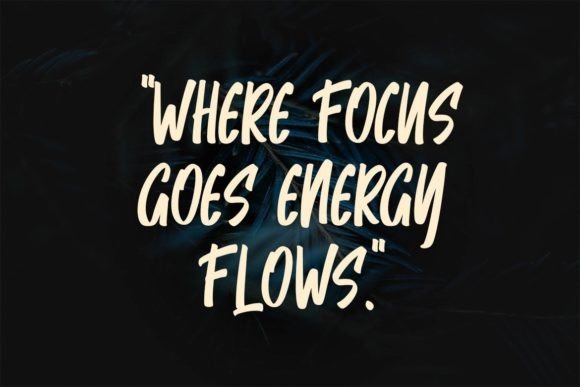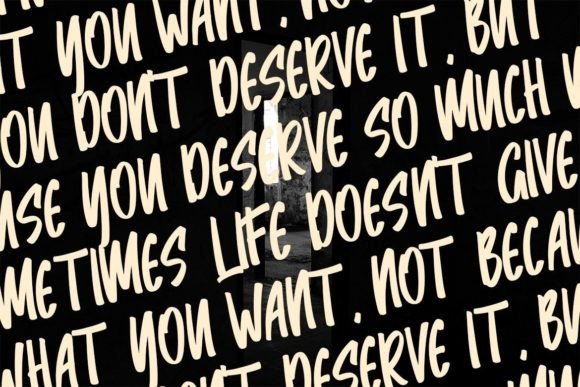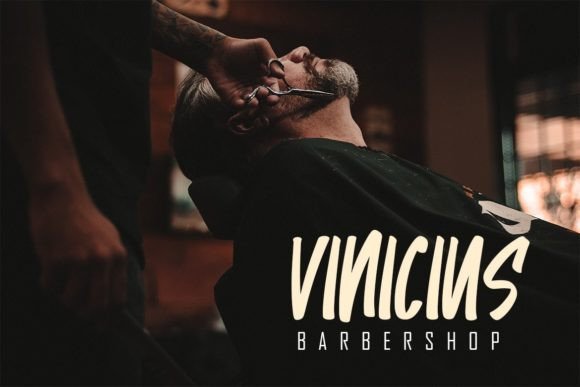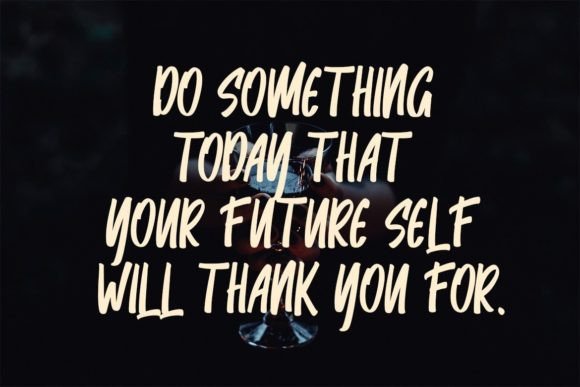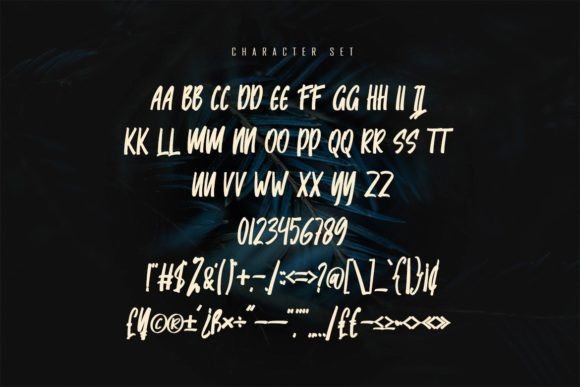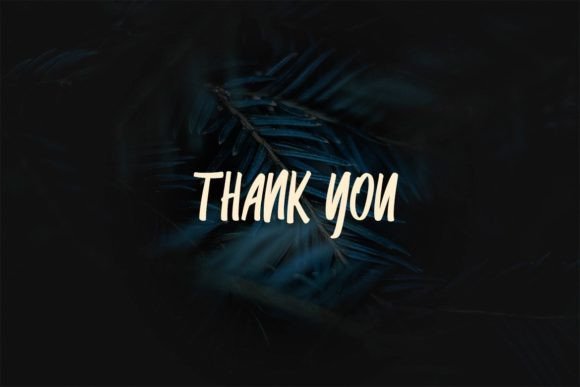
Samire Font
About Samire Font
Samire is a distinctive and elegant handwritten font that adds a touch of uniqueness and sophistication to a variety of design projects. With its personalized style, this font stands out and enhances the beauty of your creative endeavors.
The uniqueness of Samire makes it well-suited for a range of designs, allowing it to bring a fresh and individualized look to your projects. Whether you’re working on invitations, greeting cards, branding materials, business cards, quotes, or posters, Samire’s elegant script will elevate the overall aesthetic.
In the realm of invitations and greeting cards, Samire adds a personalized and stylish touch, setting the tone for special occasions with its unique and refined letterforms. Its elegant handwritten quality contributes to a warm and inviting atmosphere.
For branding materials and business cards, Samire introduces a sense of sophistication and individuality. The font’s distinctive style enhances your brand identity, leaving a lasting impression with its elegant script.
In quotes and posters, Samire brings an artistic and refined element. The elegant handwritten font adds a touch of class, making your designs visually appealing and captivating.
Samire’s versatility makes it suitable for various design applications, providing you with the flexibility to incorporate its unique charm into different projects. Whether you’re working on print or digital materials, this font adds an element of elegance and personalization.
In summary, Samire is more than just a font; it’s a design asset that brings uniqueness and elegance to your creative projects. Its personalized style makes it a standout choice for a variety of applications, contributing to a visually appealing and refined aesthetic.